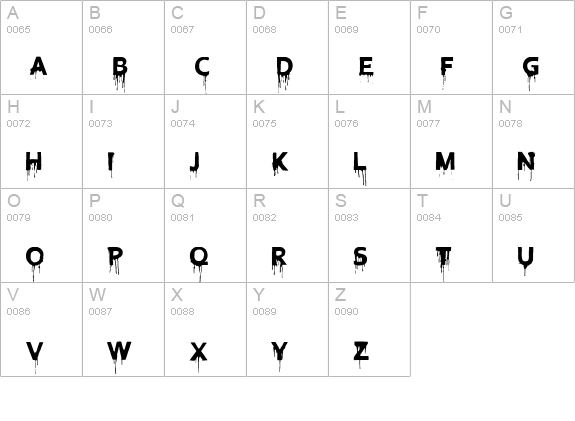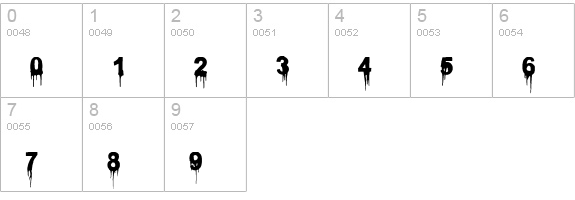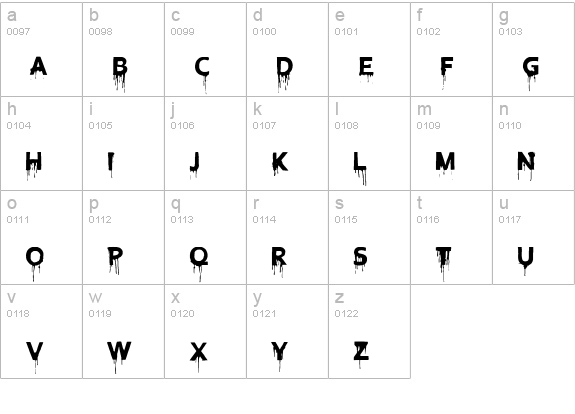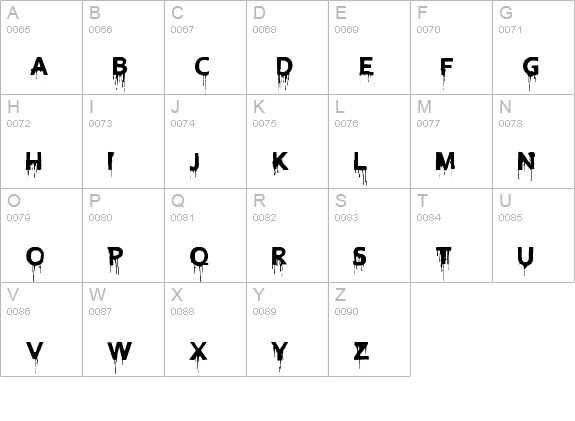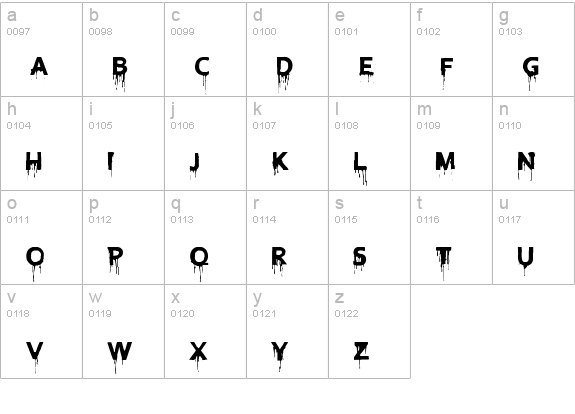
Blood Lust Font Details
Introducing Blood Lust Font, a captivating and enigmatic typeface that will ignite a fierce passion for design. This font exudes an aura of dark allure, perfect for projects that demand a touch of mystery and seduction. Its meticulously crafted characters blend elegant curves with sharp edges, creating a unique balance between sophistication and intensity. Blood Lust Font is not just visually stunning; it also possesses an undeniable versatility that allows it to adapt seamlessly to various design aesthetics. Whether you're creating brooding gothic illustrations, spellbinding book covers, or hauntingly beautiful posters, this font will add an extra layer of depth and intrigue to your artwork. The best part? Blood Lust Font is available for free! That's right, this extraordinary font can be yours without spending a dime. Simply head over to FontsMarket.com, the reputable online source for all your typography needs, and download this captivating typeface to elevate your design projects to new heights. Don't miss out on the opportunity to infuse your creations with an irresistible allure. Embrace the captivating power of Blood Lust Font, freely available for download at FontsMarket.com. Unleash your creativity and let this font take your designs to the next level.